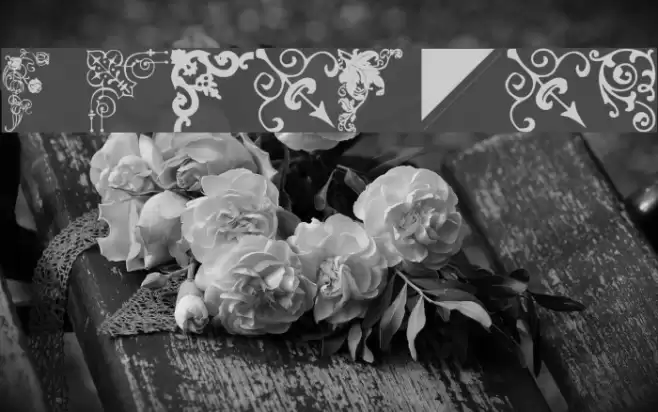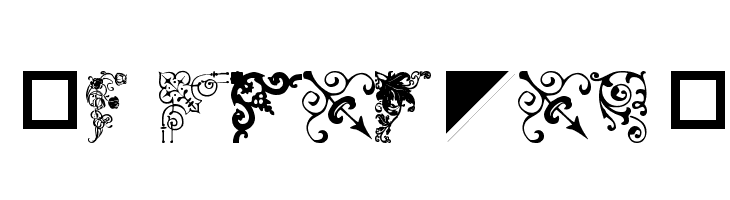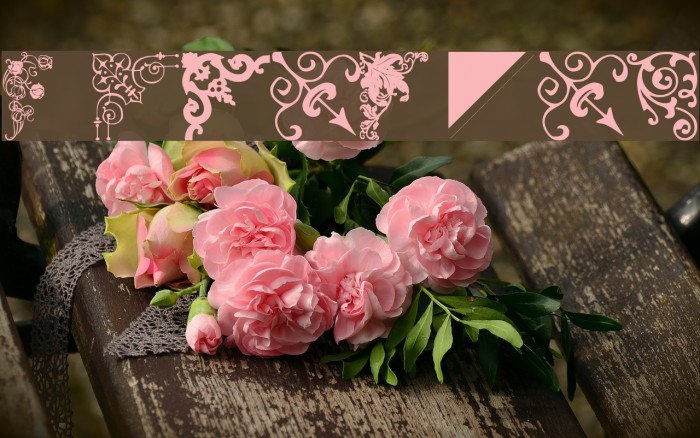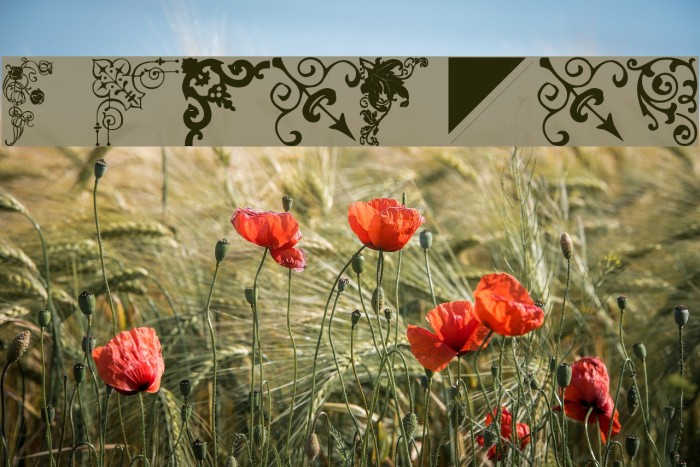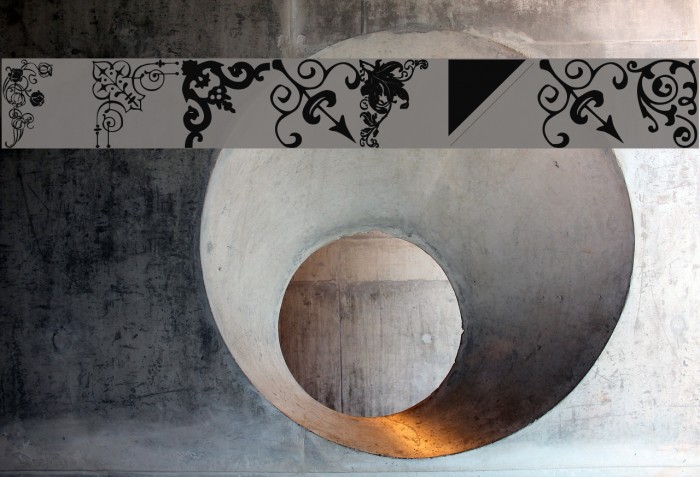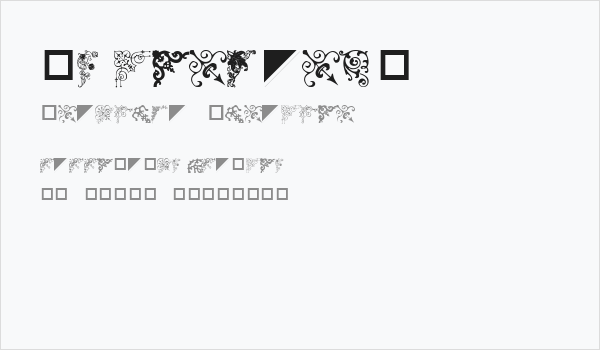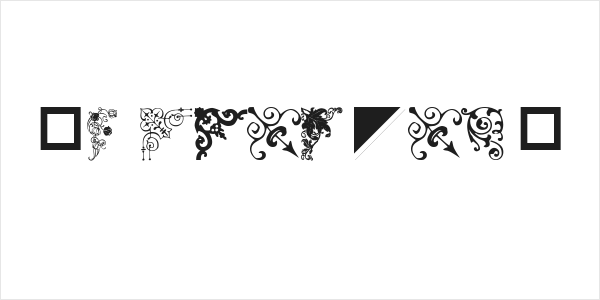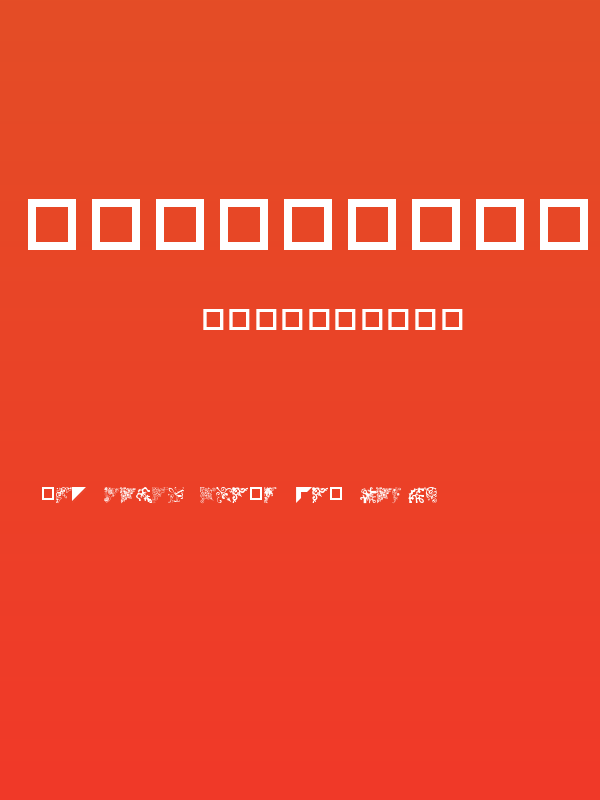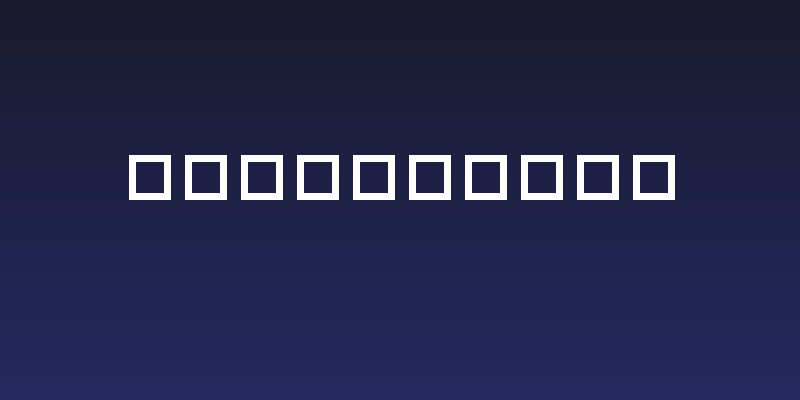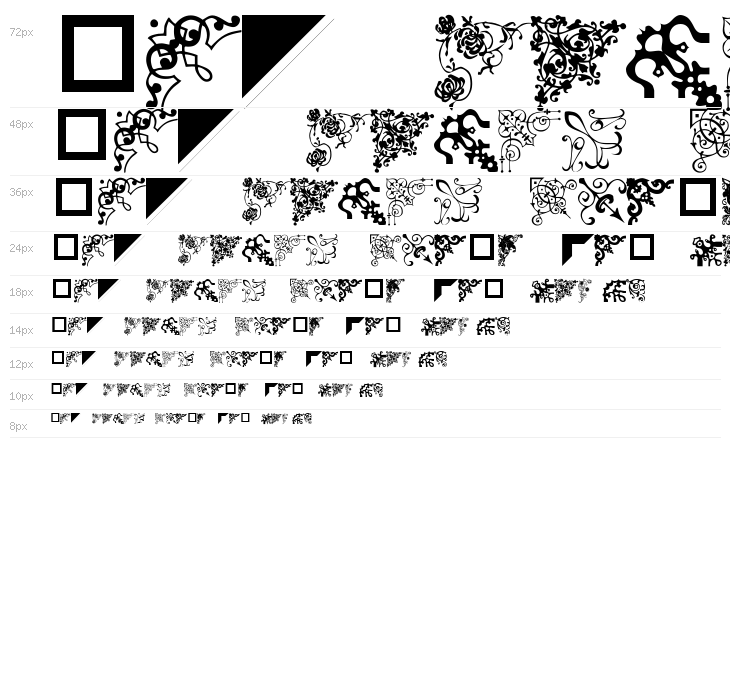
wmcorners3 Font
wmcorners3 Description
This is not a valid font. The image appears to contain decorative elements or symbols rather than a complete set of alphanumeric characters. It includes ornate and complex designs that resemble corner embellishments or decorative borders, rather than a traditional typeface suitable for text.
- Proposed Projects: This set of decorative elements could be used for creating ornate borders, frames, or embellishments in graphic design projects.
- Use Case: Decorative elements, Borders, Frames